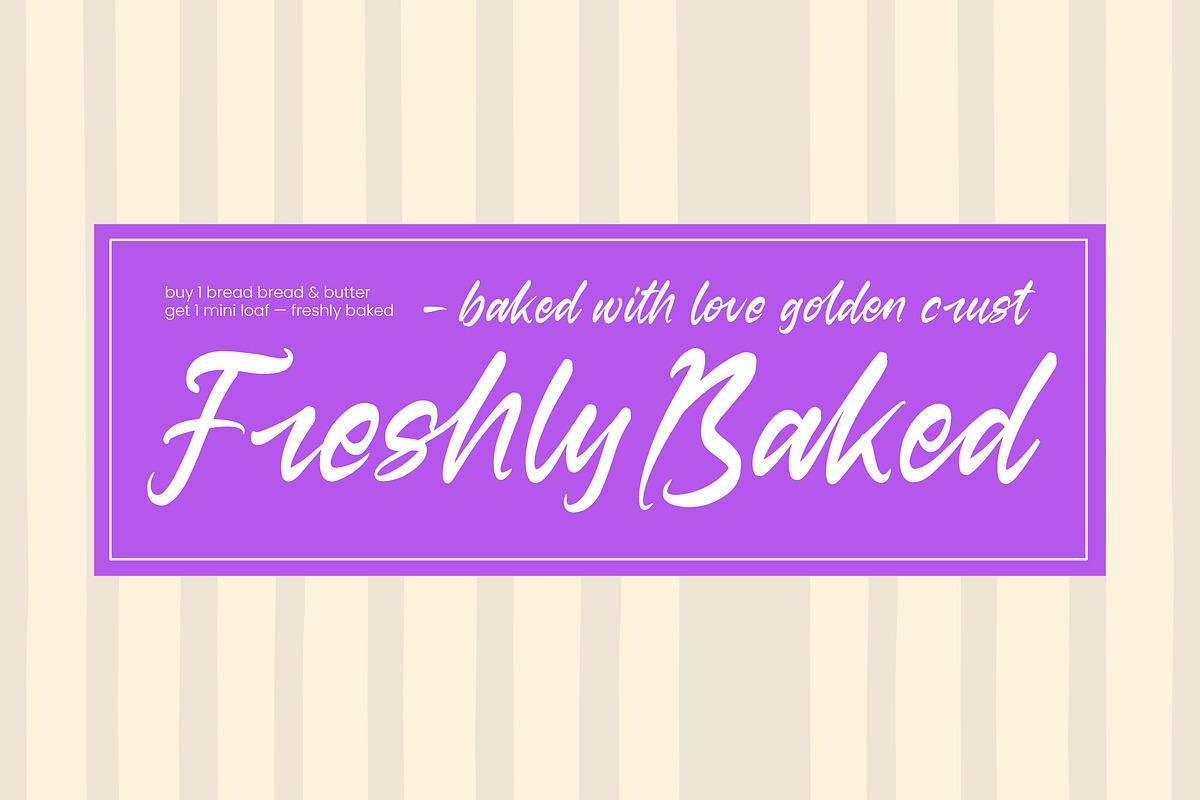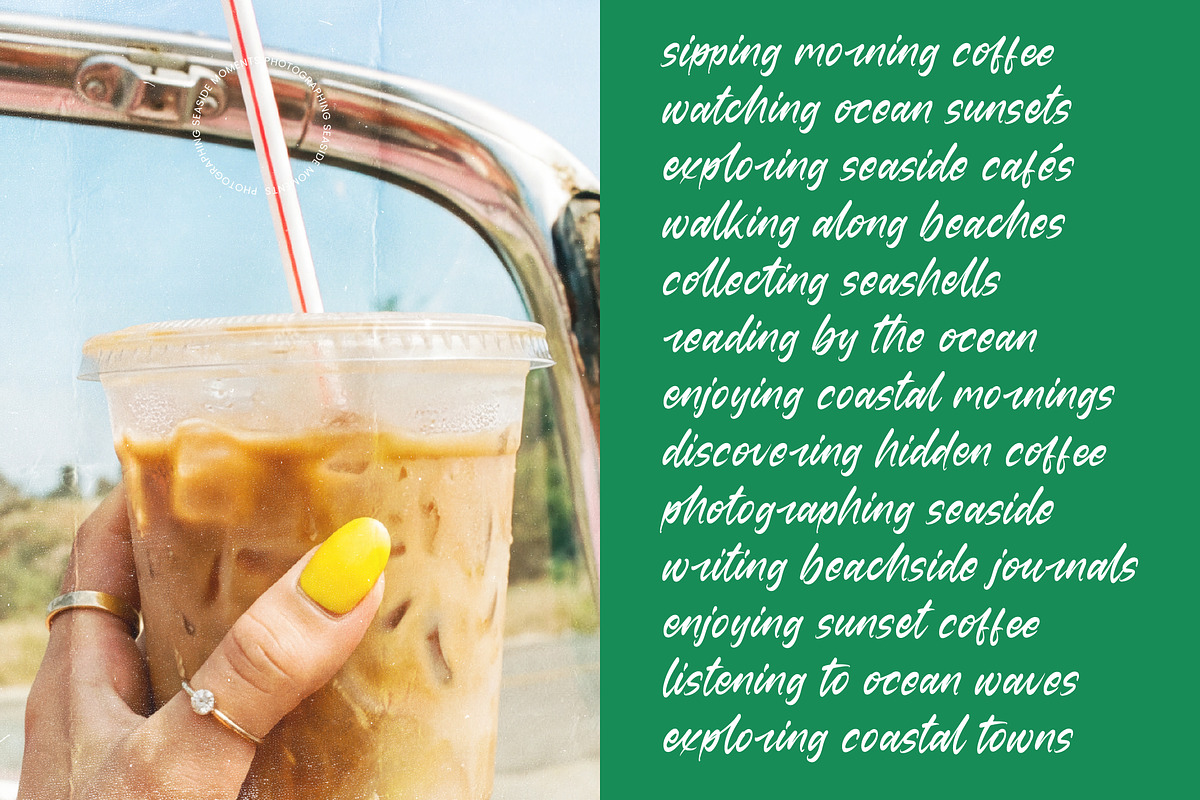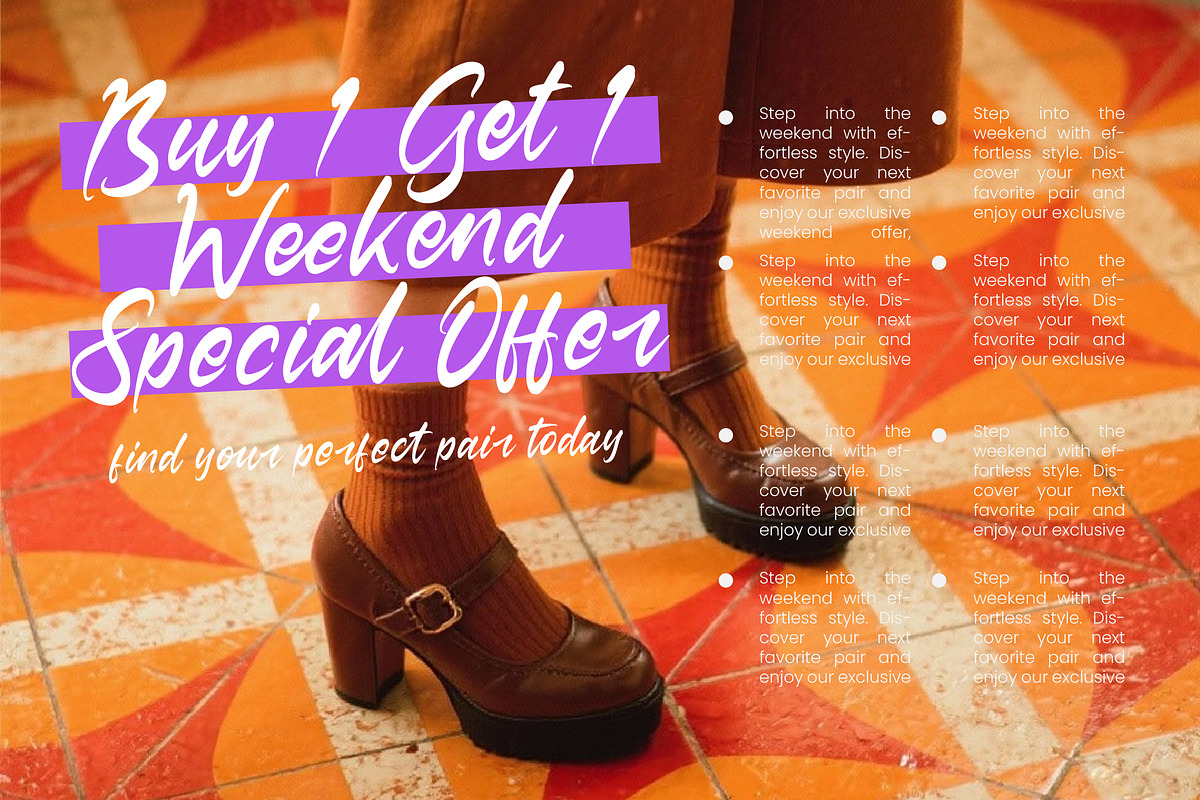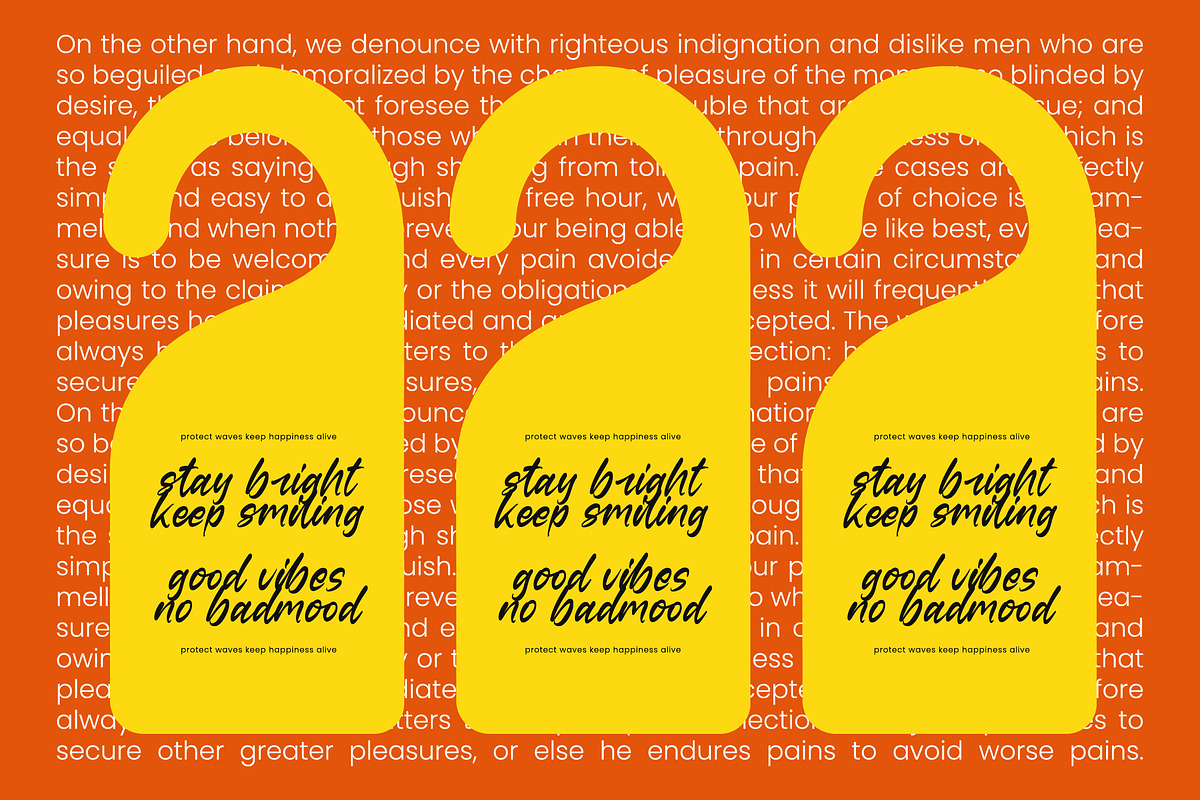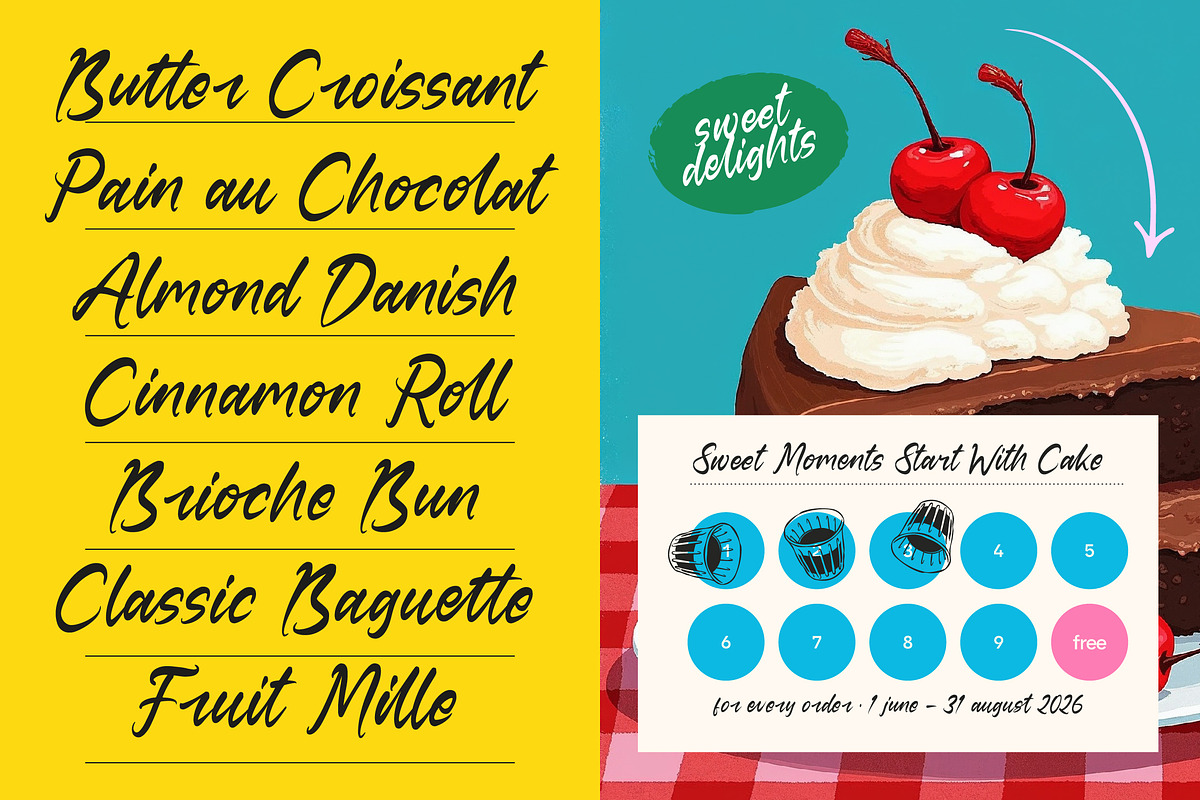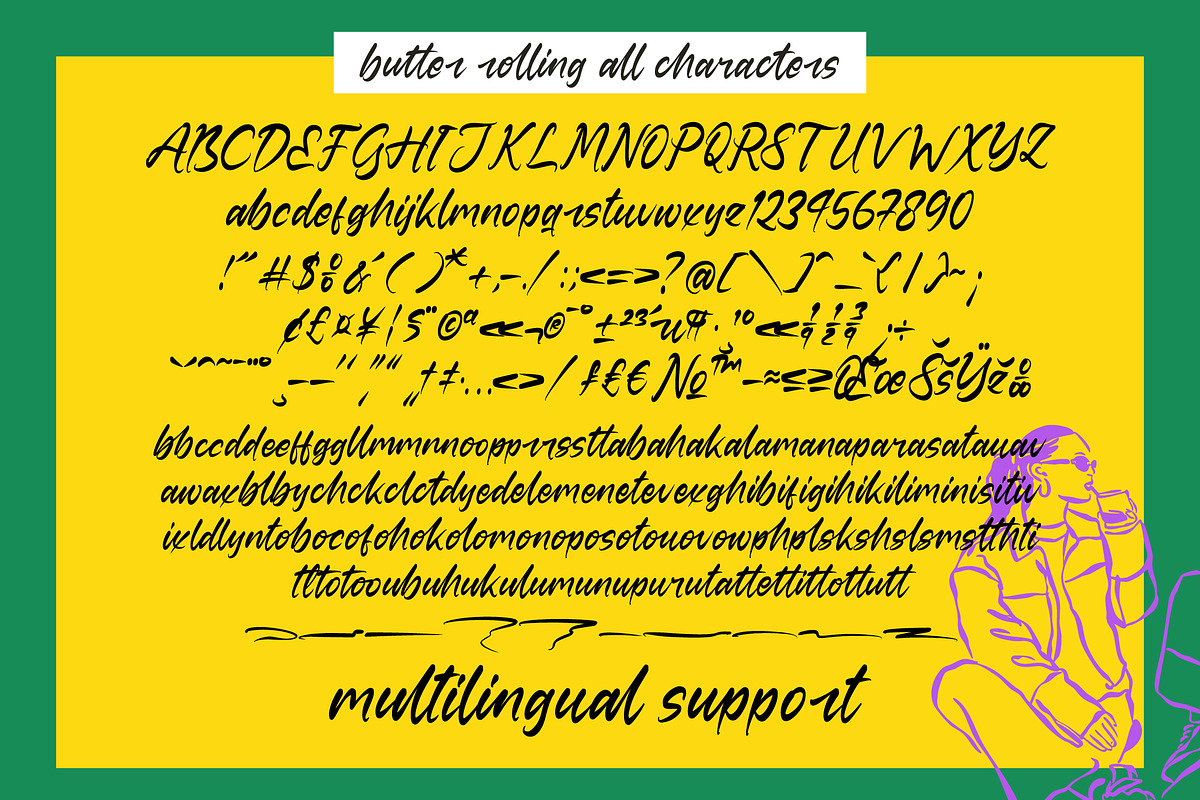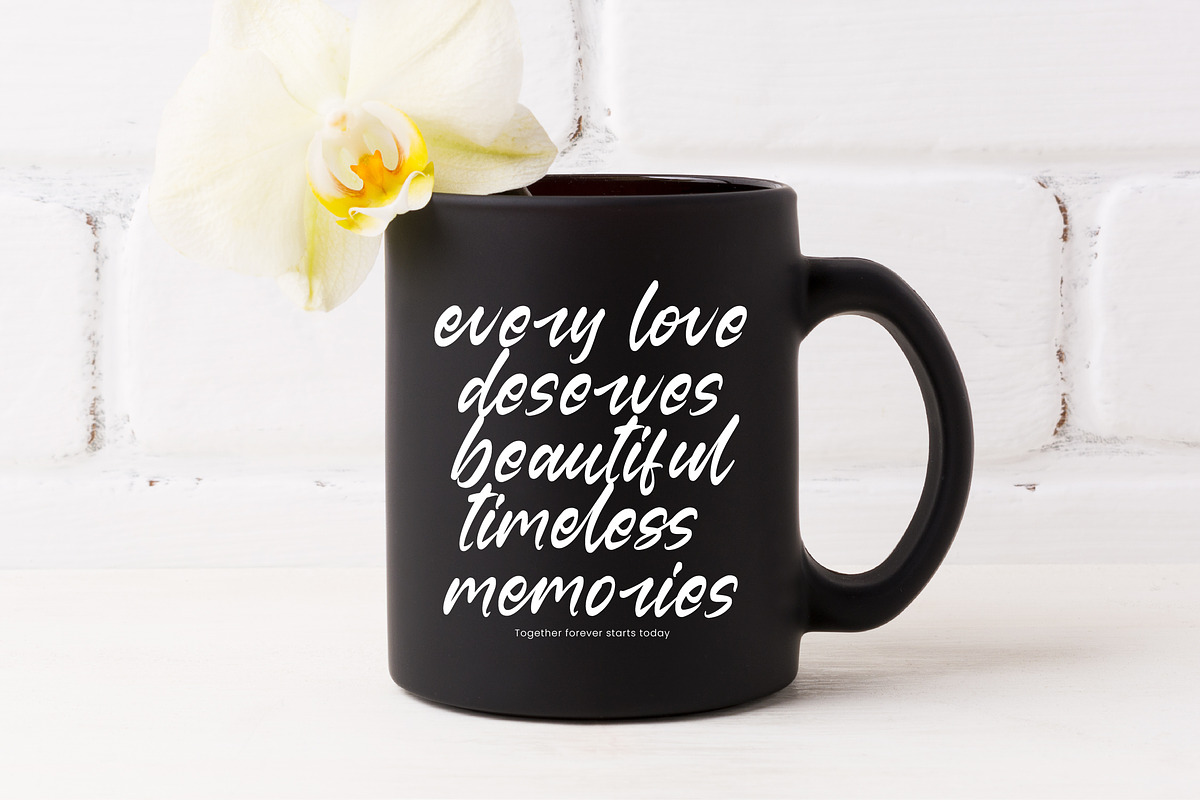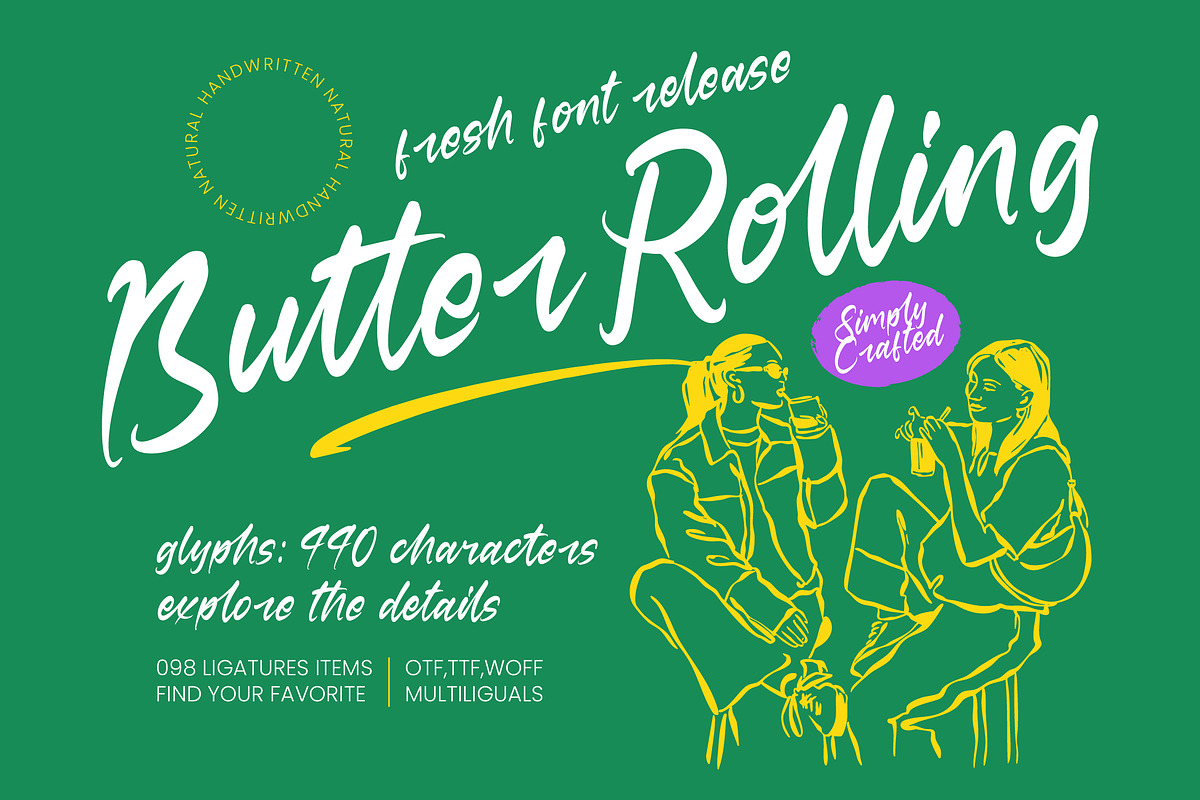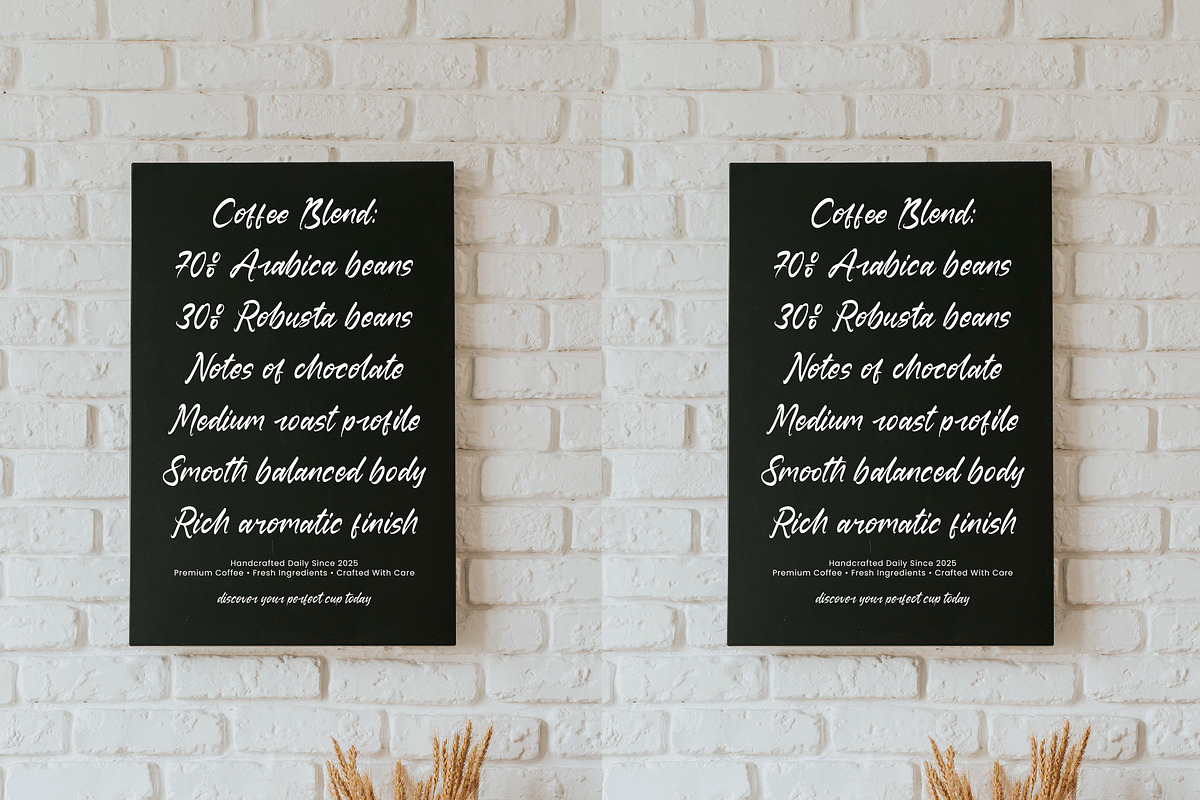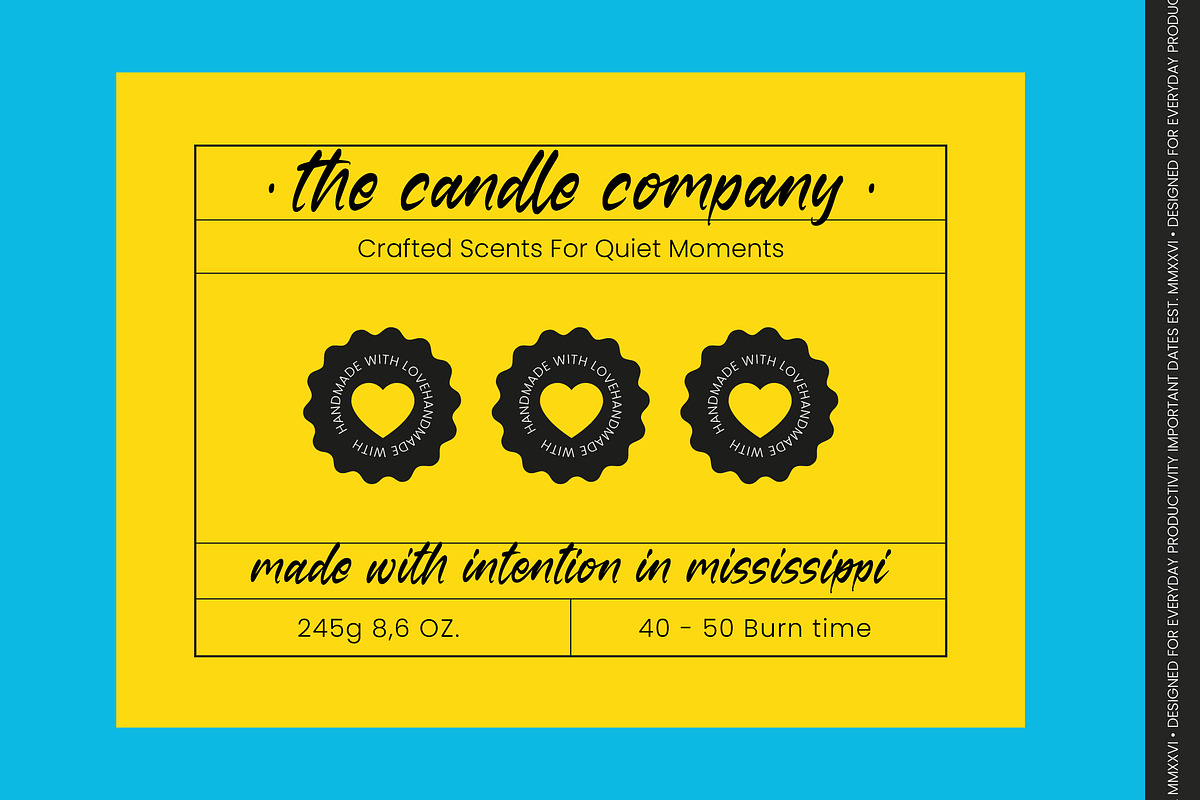
Butter Rolling Natural Handwritten
Butter Rolling - Natural Handwritten
Elevate your creative vision with a typeface that perfectly embodies raw, organic energy and effortless style. Butter Rolling - Natural Handwritten offers a dynamic flow and an authentic handcrafted aesthetic that captures the essence of modern calligraphy. Its fluid strokes and natural rhythm provide a human touch to digital designs, ensuring your message feels personal and approachable. This versatile script is designed to stand out, offering a unique blend of casual sophistication and artistic flair for any contemporary project.
Reach a diverse audience with a typeface designed for global impact and uncompromising clarity. With its extensive multilingual support, Butter Rolling - Natural Handwritten adapts seamlessly across global markets, making it incredibly versatile for international projects. This comprehensive character set ensures that your brand voice remains consistent and impactful regardless of the region or language. By integrating extensive glyphs and smart ligatures, it provides designers with the tools needed to maintain visual excellence in a competitive landscape.
Transform your brand identity with a font that excels across premium applications and high-end marketing materials. Butter Rolling - Natural Handwritten is perfect for luxury branding, boutique packaging, and editorial design where a bespoke look is essential. Its expressive personality makes it an ideal choice for social media graphics, lifestyle photography overlays, and logo design. Whether you are crafting an exclusive invitation or a vibrant advertising campaign, this typeface delivers a premium visual experience that resonates deeply with your audience.
Experience the perfect synergy of artistic expression and professional functionality in every stroke. Butter Rolling - Natural Handwritten is meticulously crafted to ensure optimal legibility while maintaining its unconventional charm. Available in multiple formats including OTF, TTF, and WOFF, it integrates effortlessly into any professional workflow for both web and print. By choosing Butter Rolling - Natural Handwritten, you are investing in a high-quality design asset that adds intrinsic value and a memorable character to your creative portfolio.